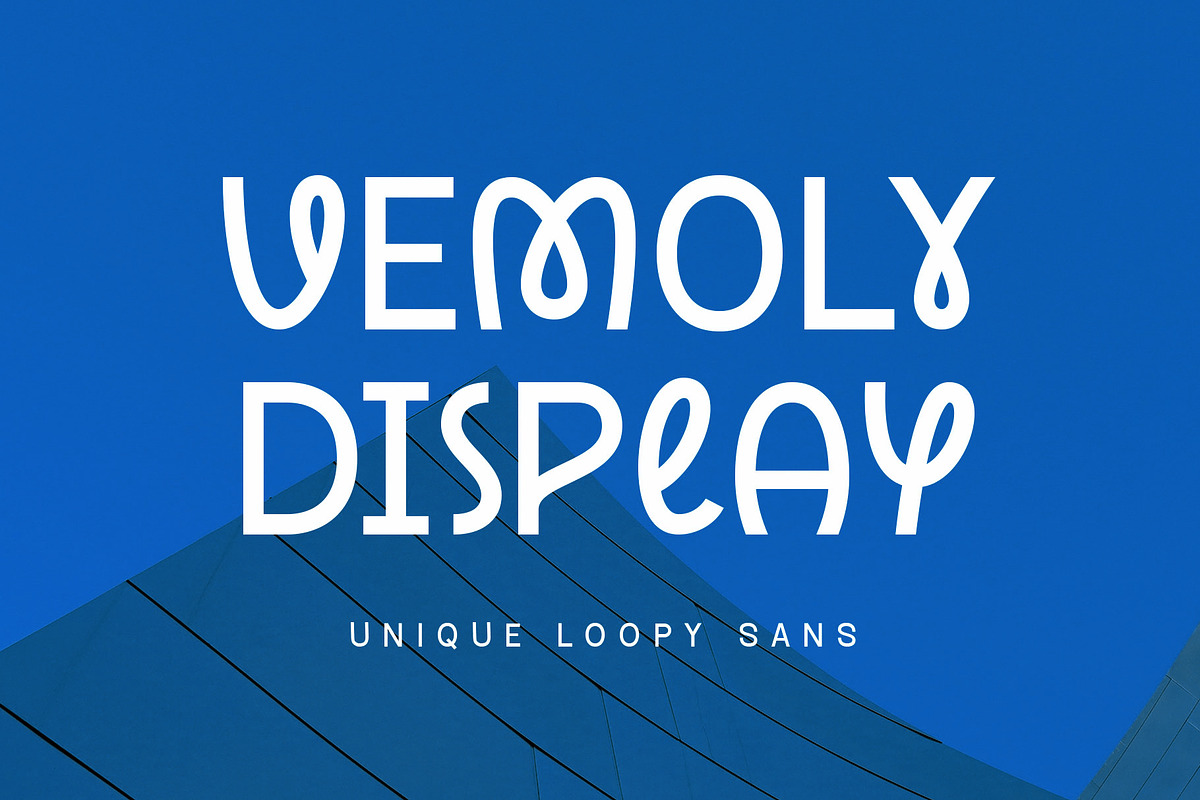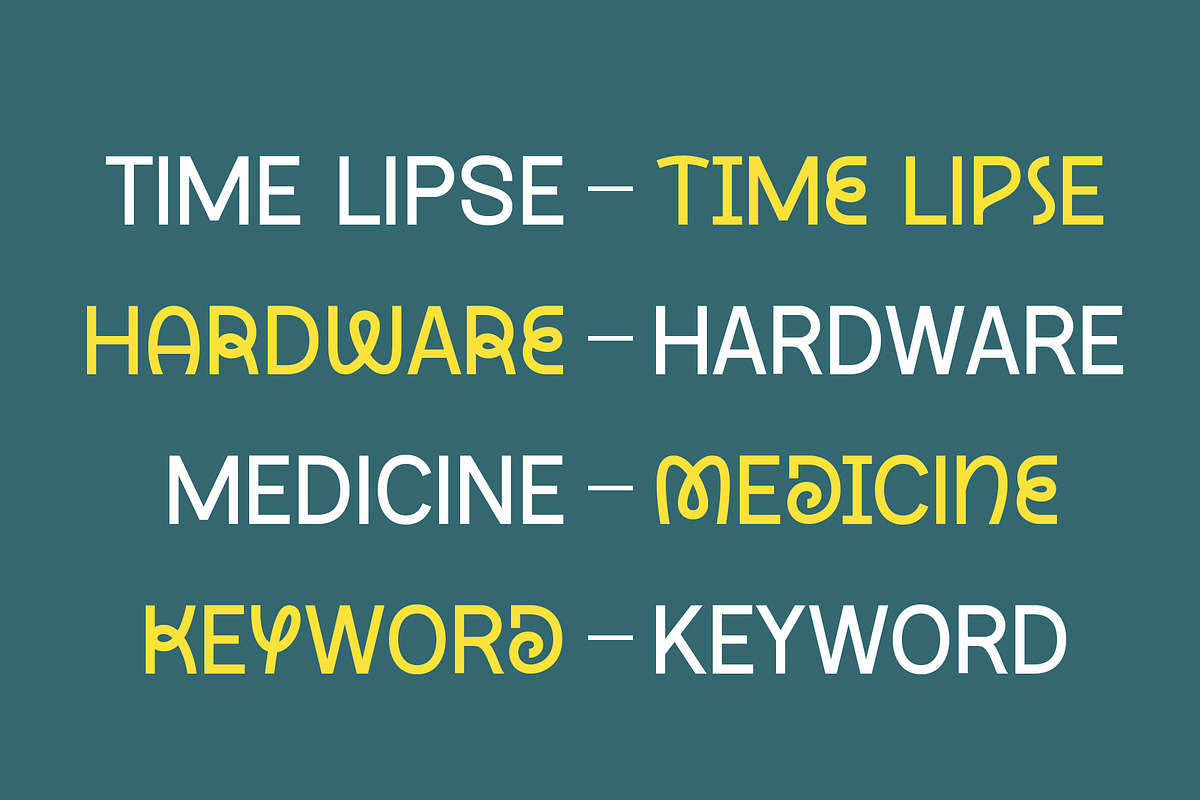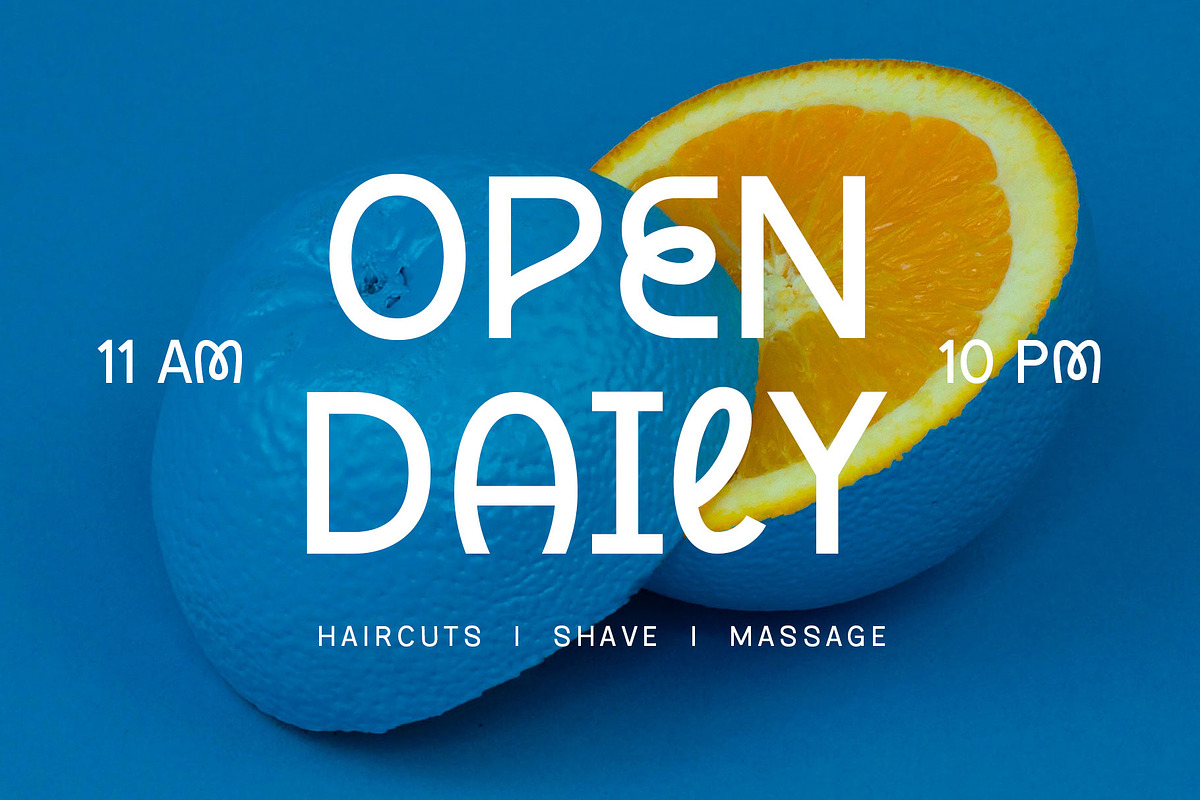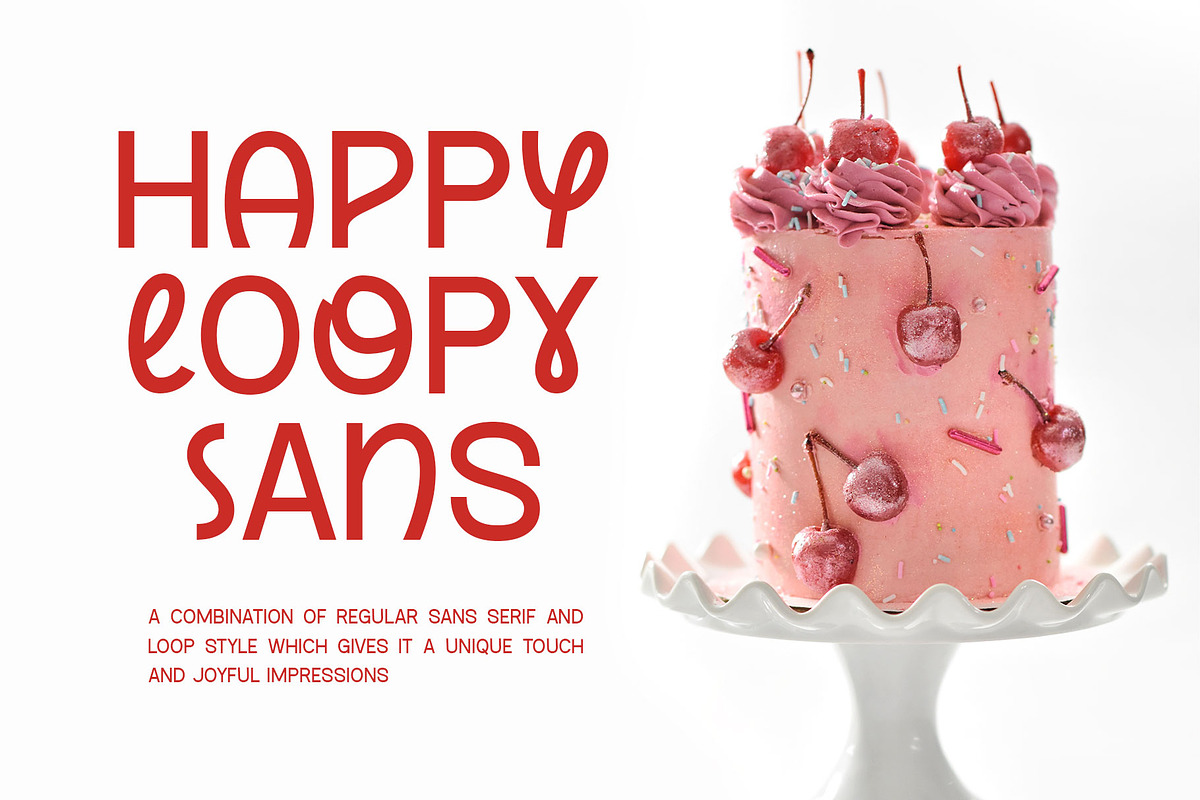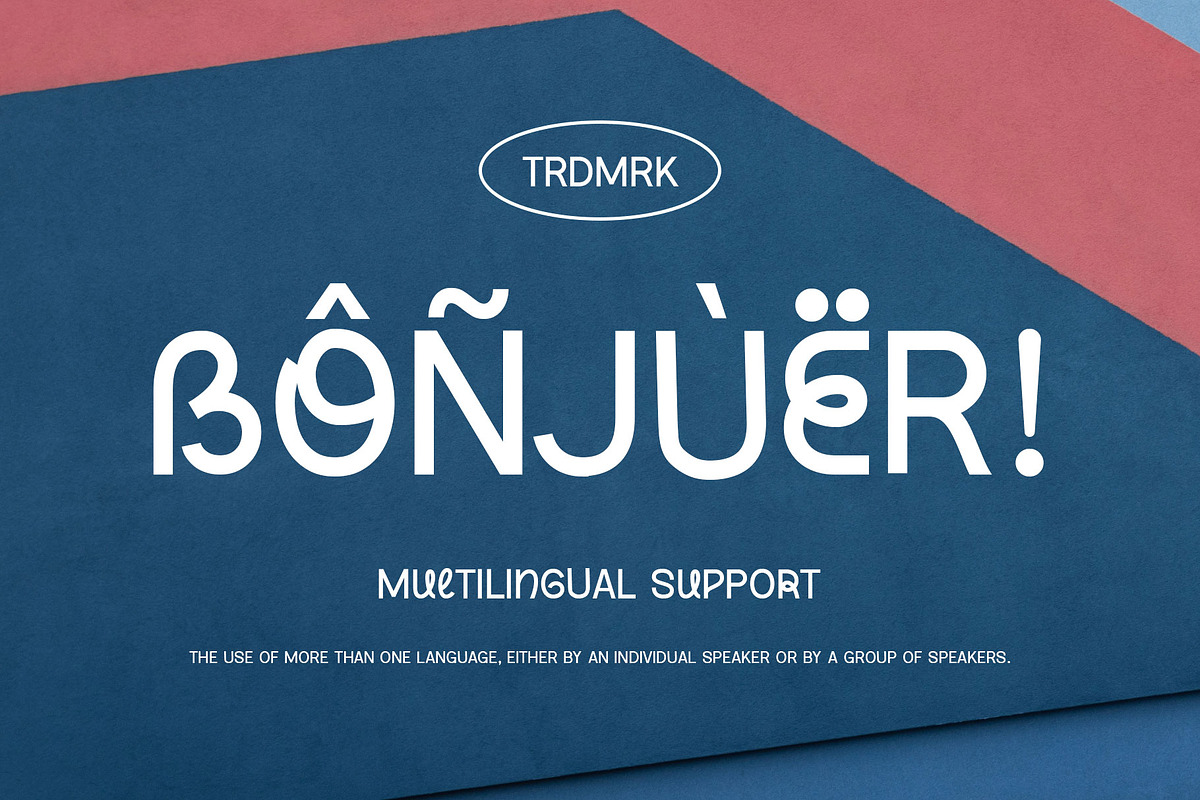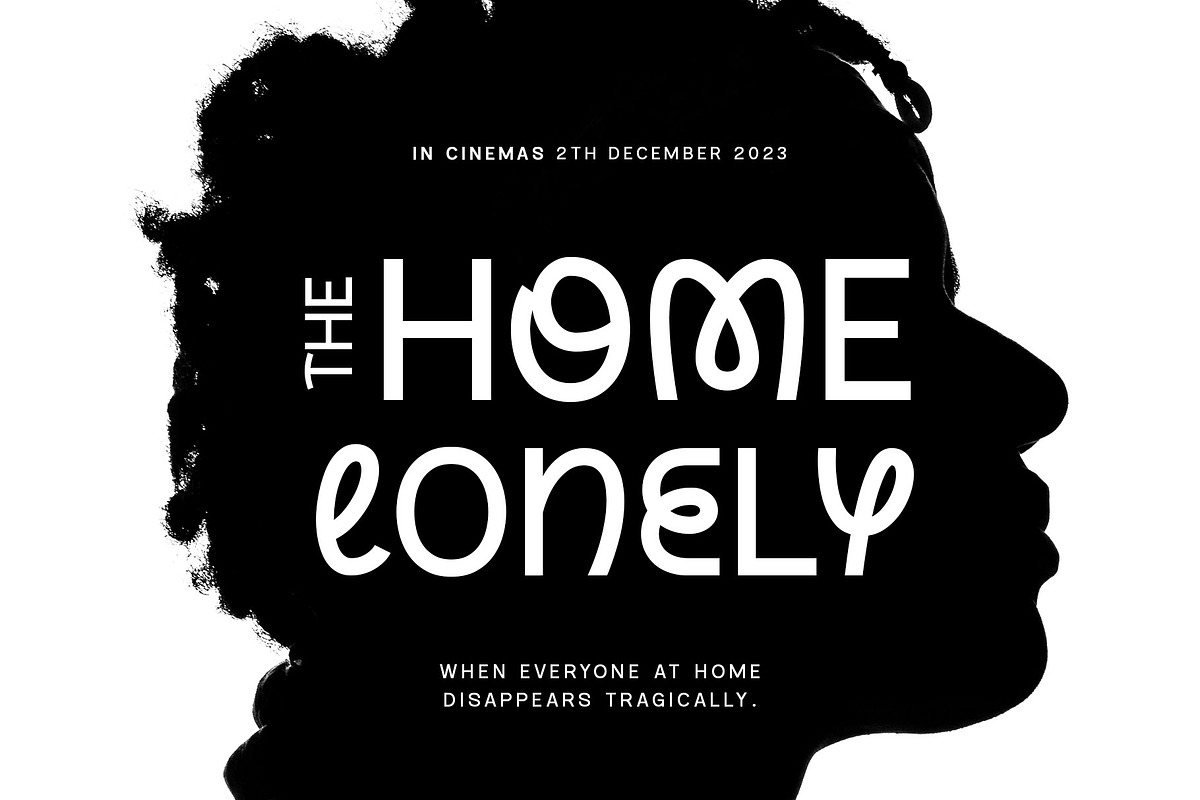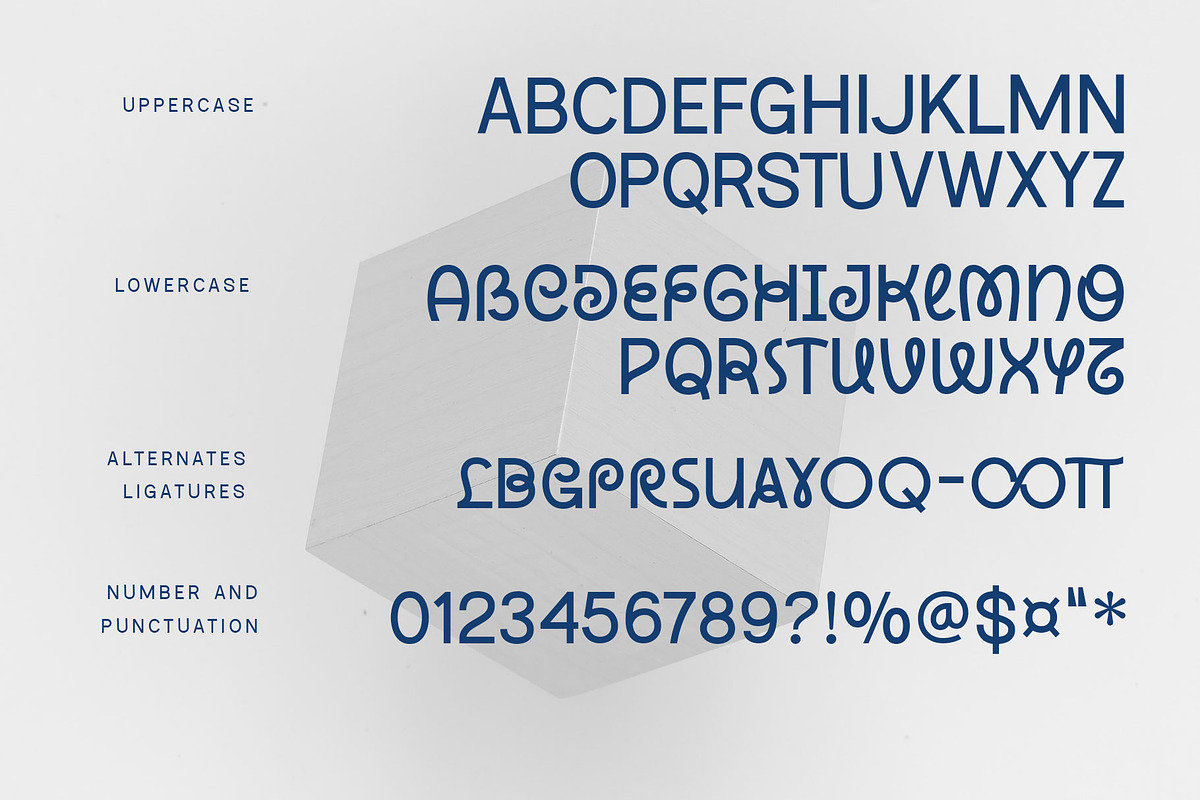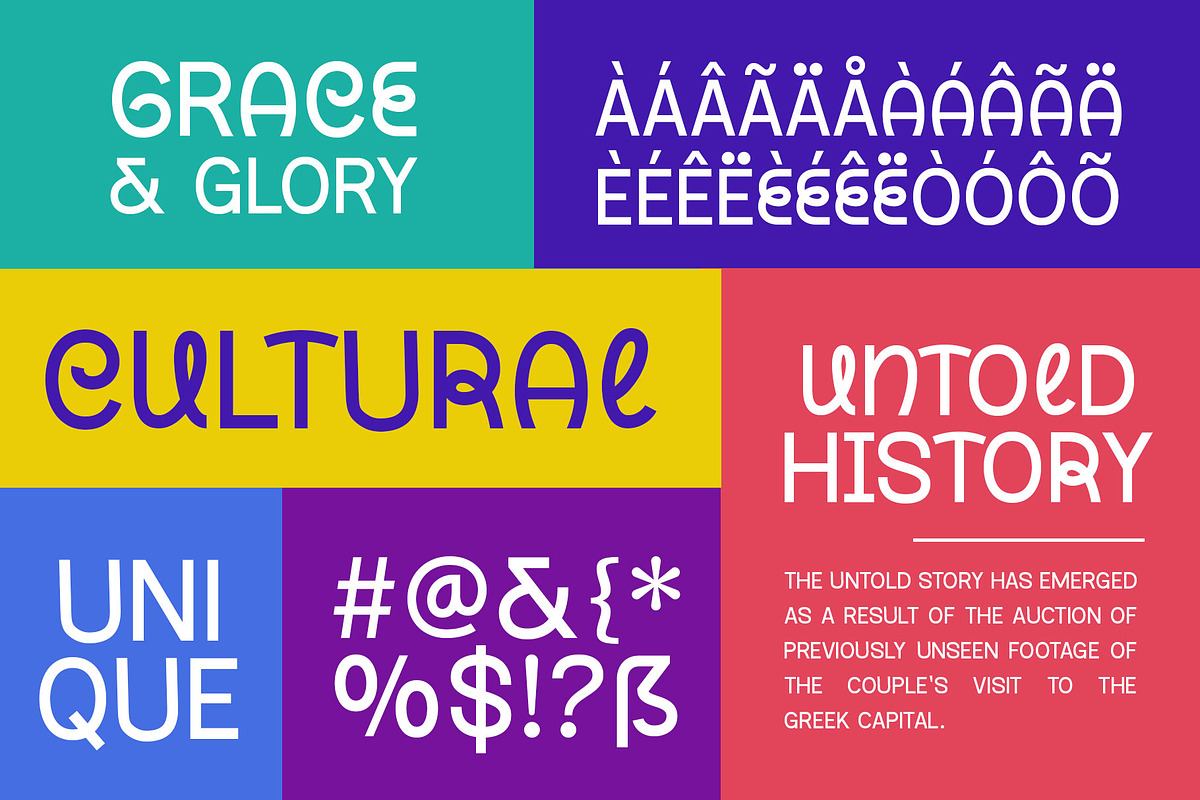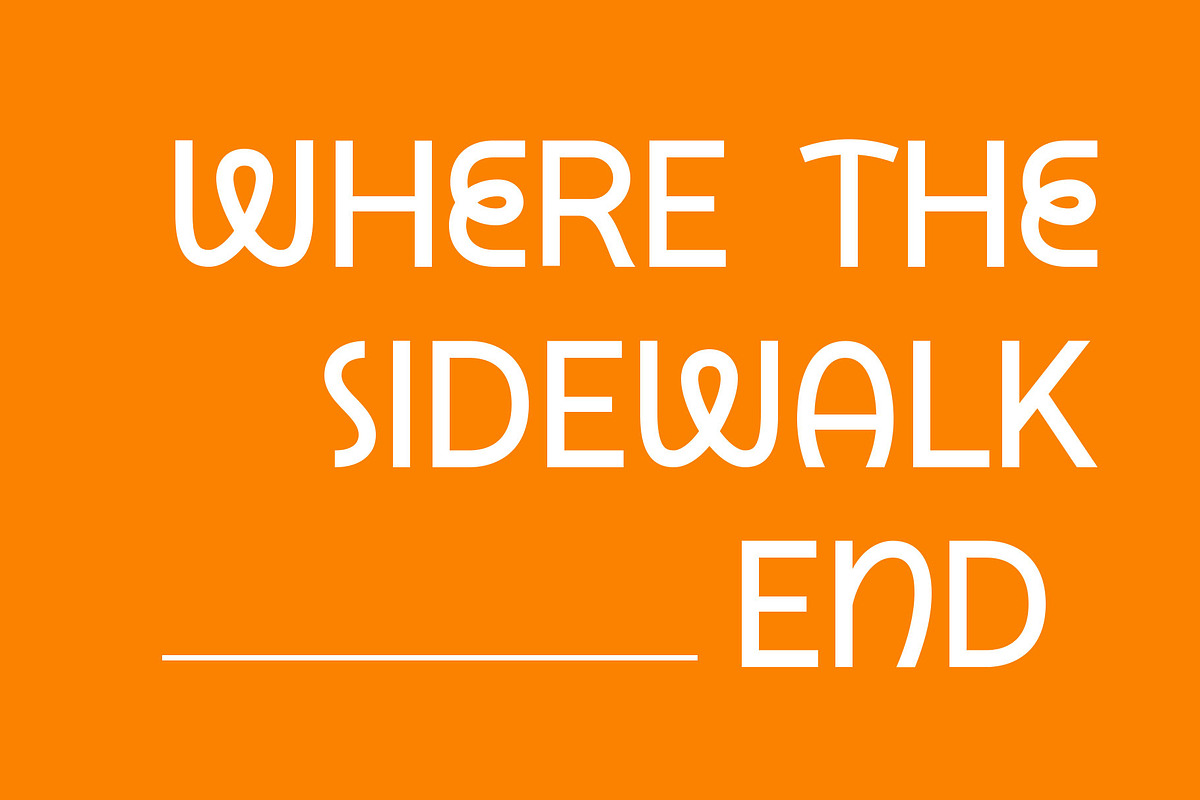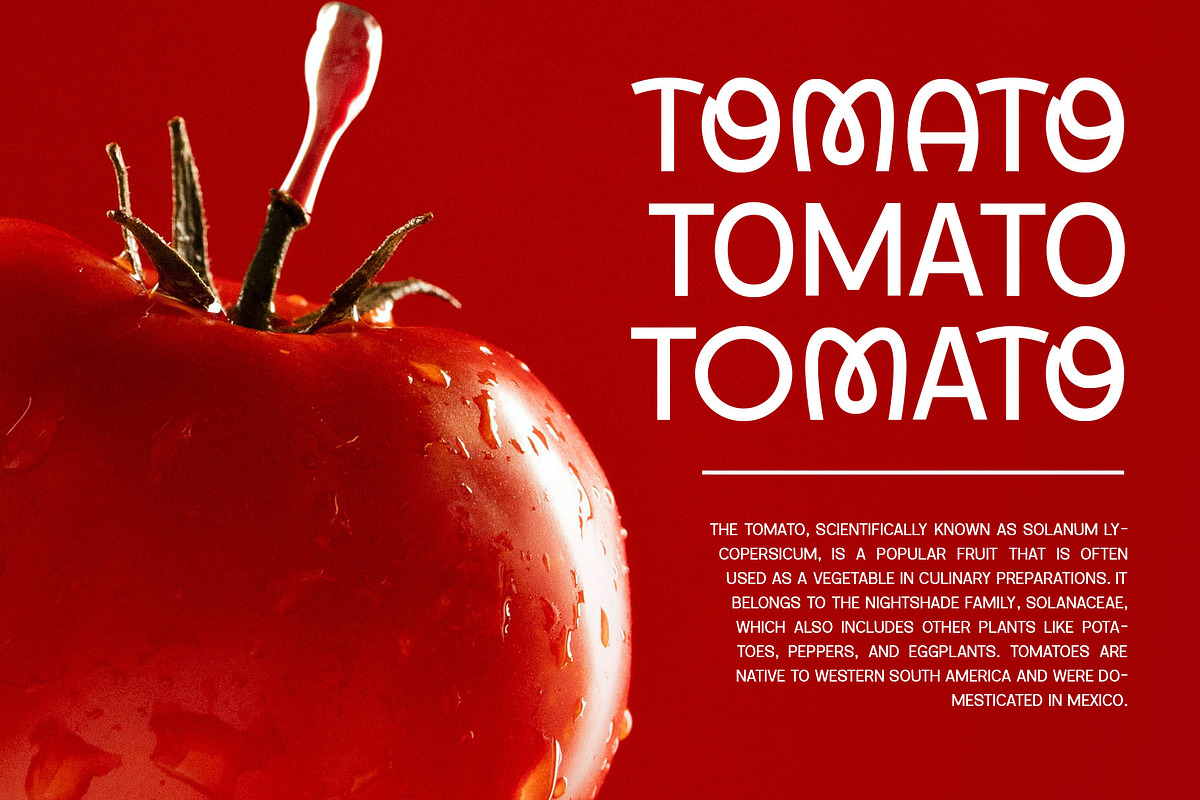
Vemoly Display
Vemoly Display - Modern Sans - Unique Loopy Sans
Vemoly Display is a minimalist sans that is perfect for your upcoming aesthetic project. This font provides a combination of basic sans serif and loopy style. You can make fun by mixing and matching the upper and lowercase to get a unique, simple, and charming typographic design.
Vemoly Display is a perfect choice for logo, social media, branding, poster, flyer, magazine, websites, fashion, mobile apps, decoration, wedding, and many more!
- Uppercase : Basic Sans
- Lowercase : Display
- Numbers & punctuations
- Stylistic alternates